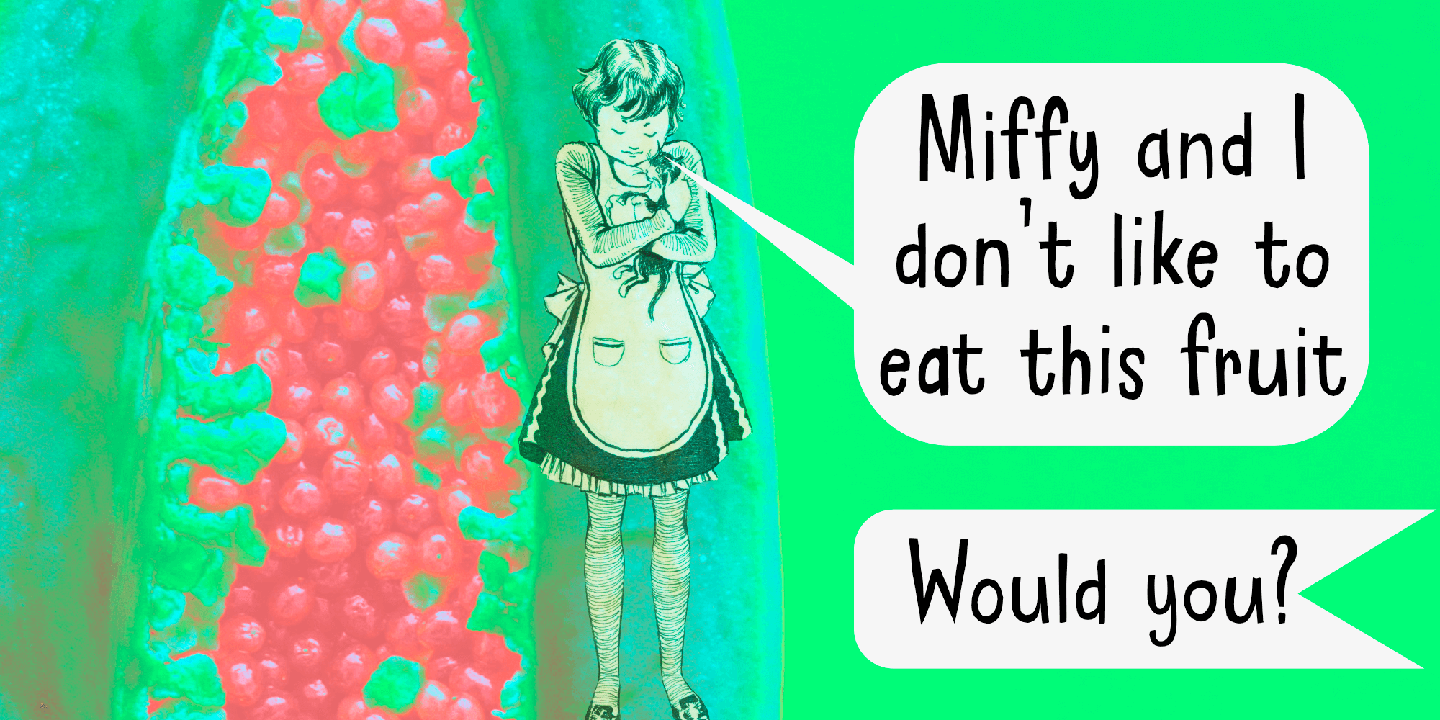
Fruity Snack
We have been in lockdown for a long time now. The schools were also closed, meaning my kids had to stay at home. This week the schools reopened (not a day too soon!), which means my kids can play with their friends again and learn something too!
My wife and I pack their lunchboxes every day and always add some fruit for snack time. That fruity snack inspired me to create this rather messy font!
Fruity Snack is a handmade display font. It looks wobbly, comes with awkward angles and rough bits. It also comes with extensive language support (including Vietnamese) and 2 sets of alternates for the lower case letters.